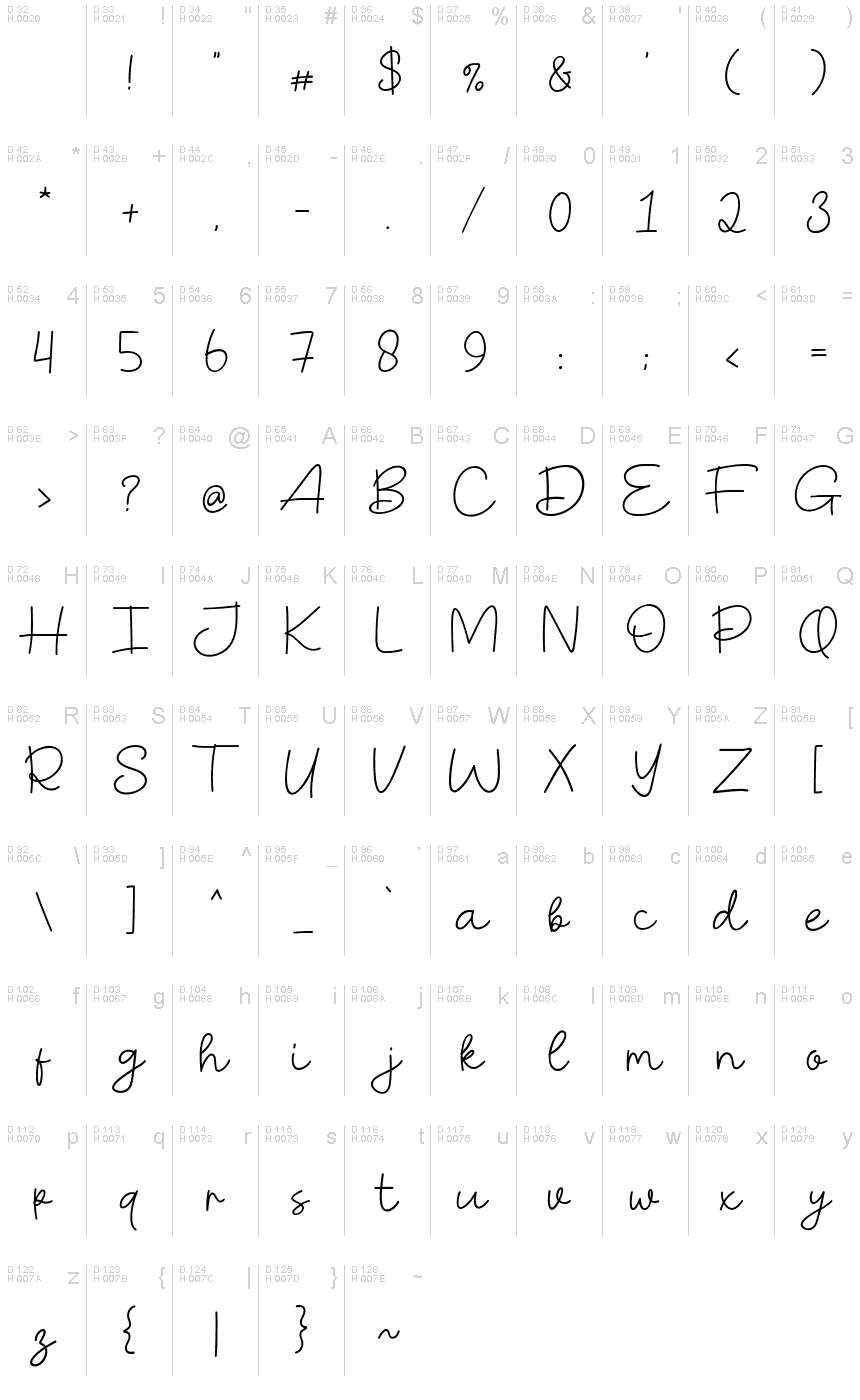
Boring Days
Boring Days, the whimsical and light handwritten font by Khurasan, adds a touch of playfulness to any project. With its semi-expanded width, this font is perfect for a wide range of creative endeavors. From children's book illustrations to quirky brand logos, Boring Days effortlessly captures attention with its charming and approachable style. Its delicate strokes and gentle curves make it an ideal choice for greeting cards, social media graphics, and scrapbooking projects as well. Let Boring Days bring life to your designs and embrace the joy in simplicity.